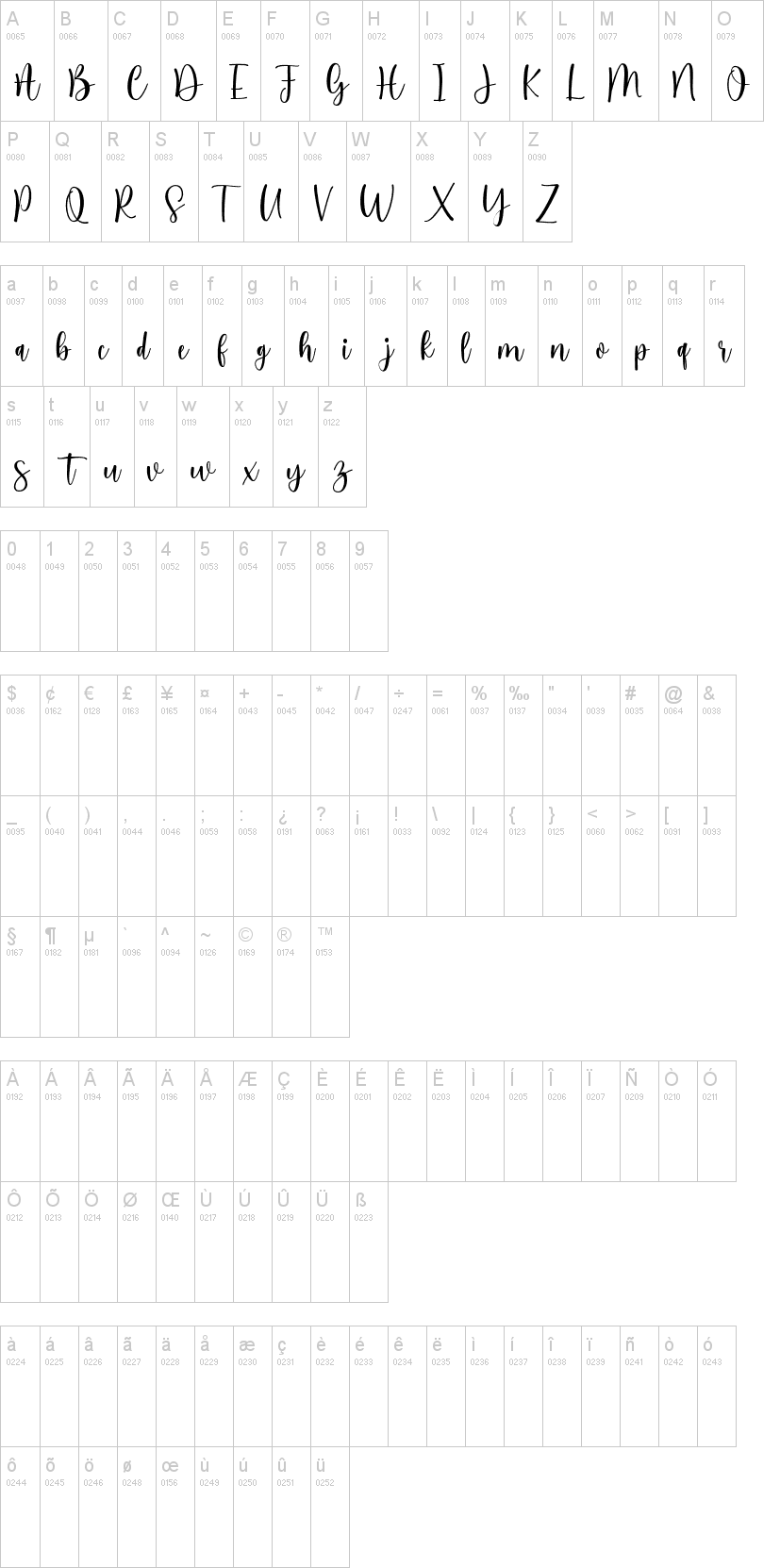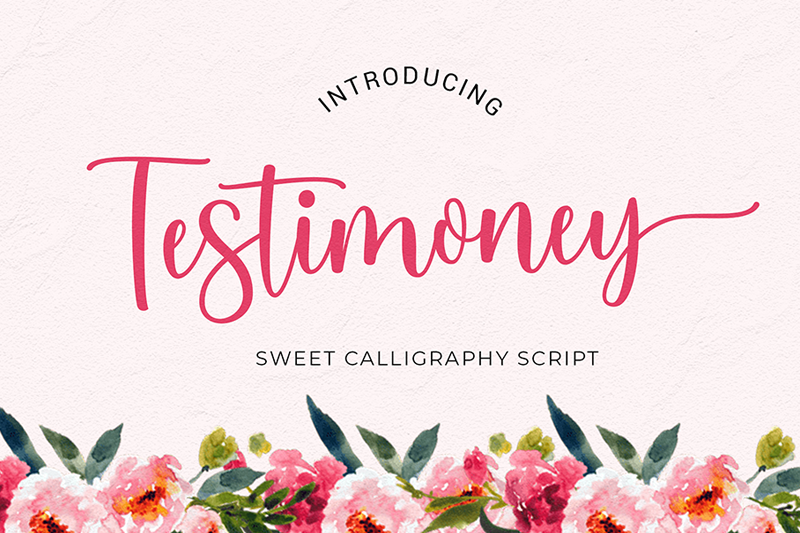
Note of the authorTestimoney is a modern calligraphy script font. It has an handmade style modern calligraphy look making it perfect for quotes and digital designs. Perfect use on social media, instagram, logos, websites, blogs, home decor, wedding decor, invitations, branding, business cards, and many more!